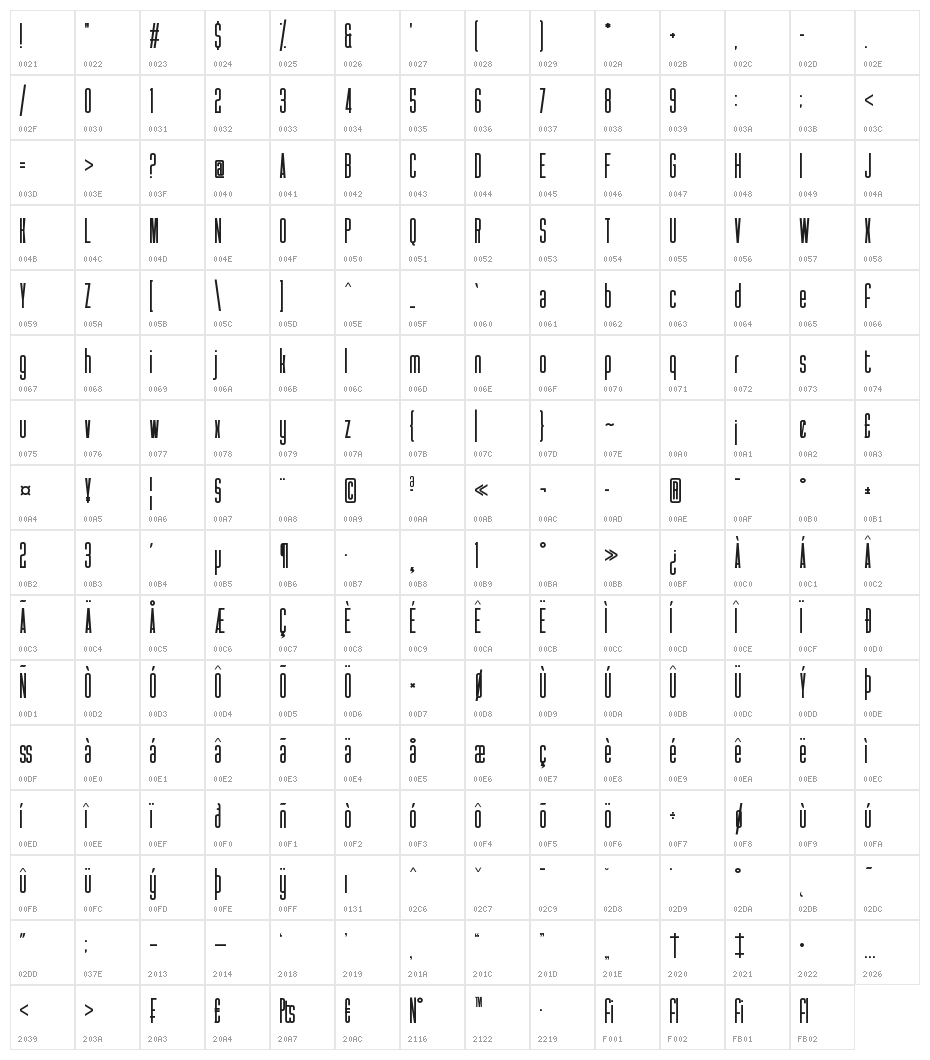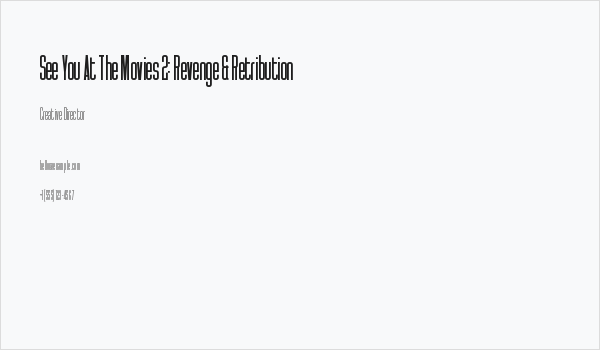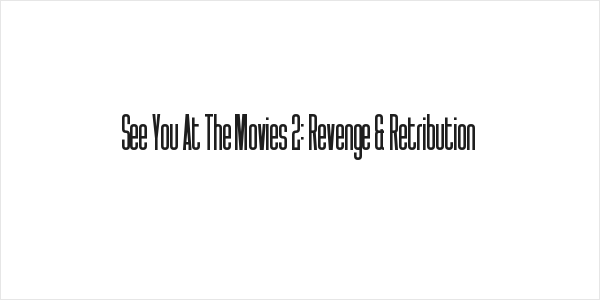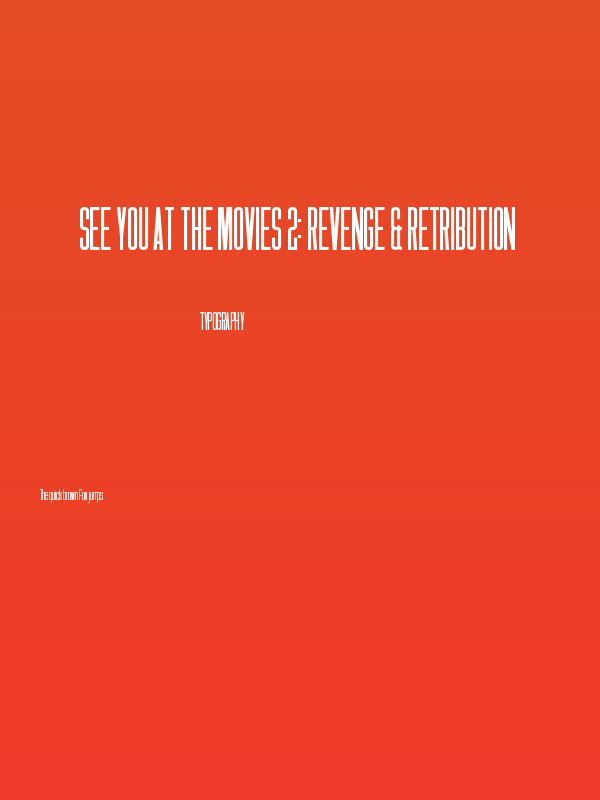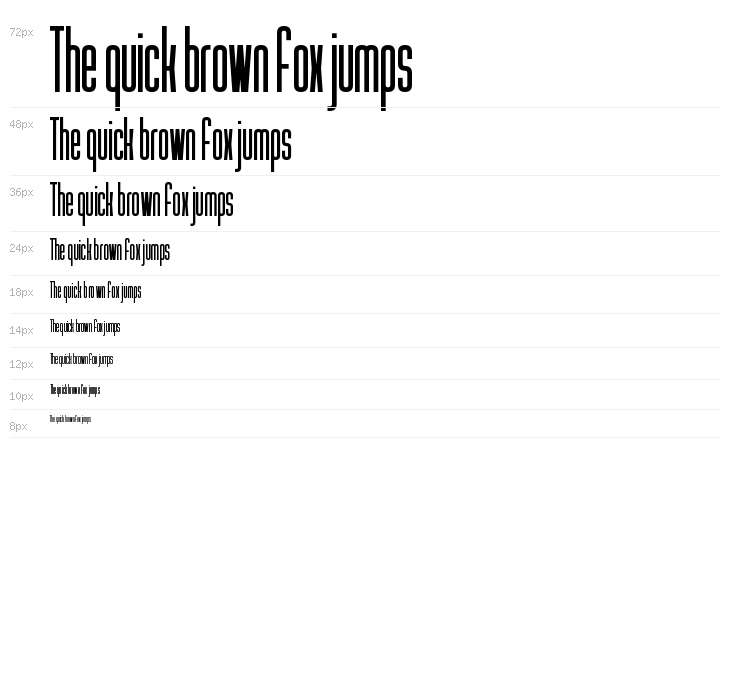
See You At The Movies 2: Revenge & Retribution Font
See You At The Movies 2: Revenge & Retribution Description
This font features a tall, condensed style with a modern and sleek appearance. The characters are elongated, giving a sense of height and elegance. The uppercase letters are particularly striking, with a uniform width that creates a cohesive look. The lowercase letters maintain the same condensed form, ensuring consistency across the typeface. Numbers and special characters are designed to match the overall aesthetic, with clean lines and minimal embellishments. This font's narrow design makes it ideal for creating impactful headlines or titles where space is limited. The overall style is contemporary, with a hint of sophistication, making it suitable for a variety of design projects.
Proposed ProjectsIdeal for movie posters, magazine covers, branding, and advertising where a bold statement is needed.